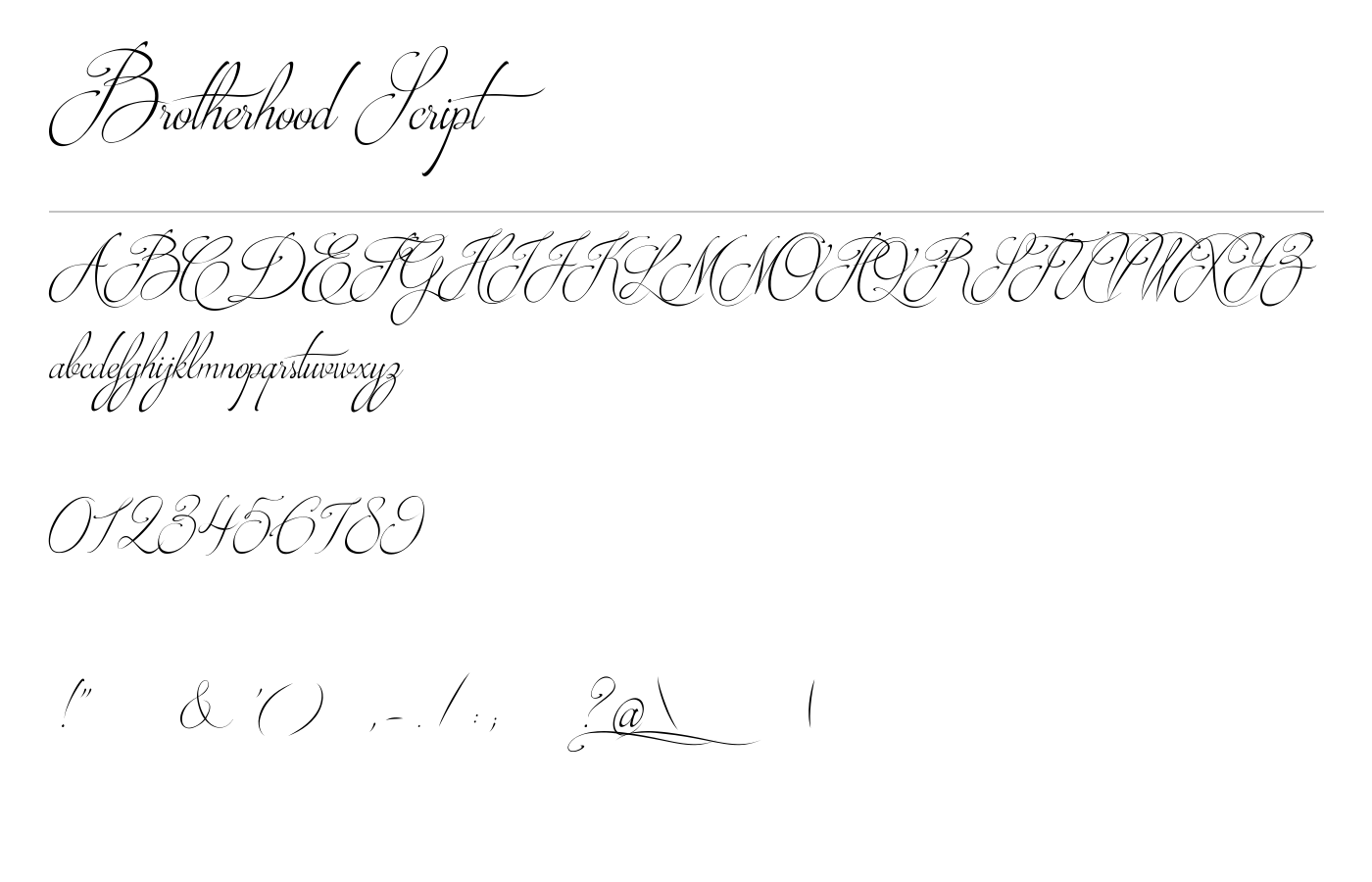
Brotherhood Script is an elegant and delicate script font characterized by its fine, flowing strokes and elaborate swashes. Its high contrast between thin and slightly thicker lines combined with graceful, looping uppercase letters creates a refined and sophisticated feel, perfect for luxury branding, wedding invitations, and upscale editorial use. This font works beautifully in large display settings where its detailed calligraphic style can shine.
Brotherhood Script Font
About Brotherhood Script Font
| Font family | Brotherhood Script Font |
| Designer | Youssef Habchi |